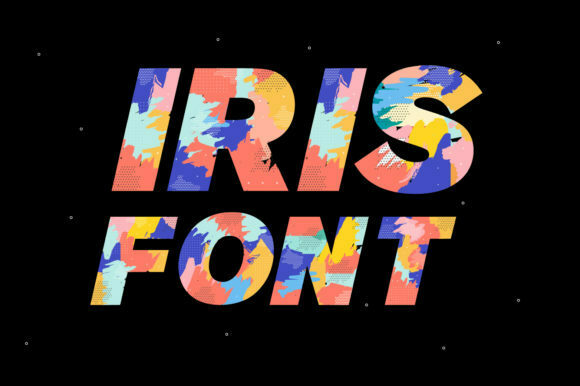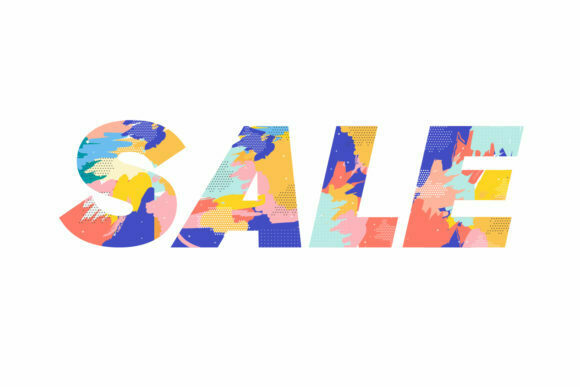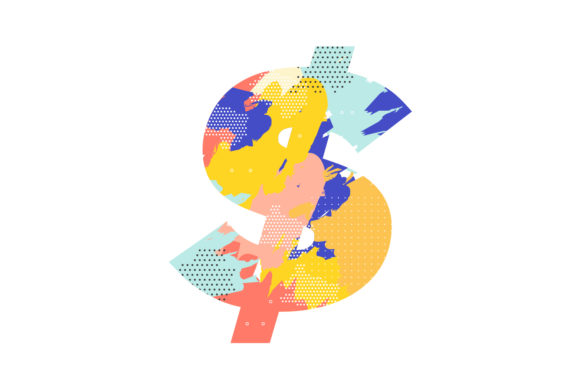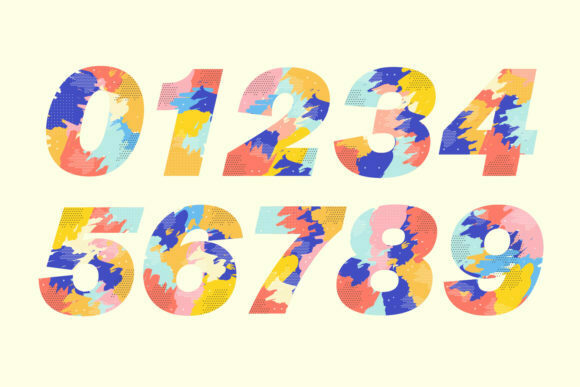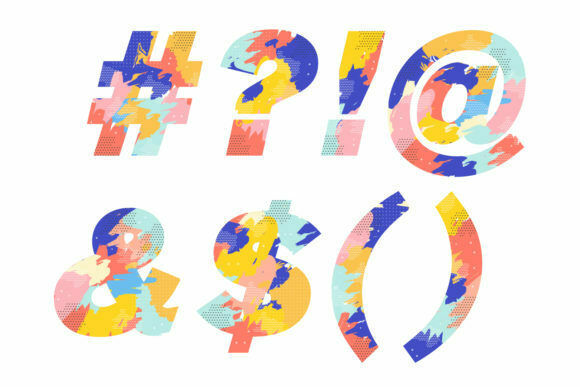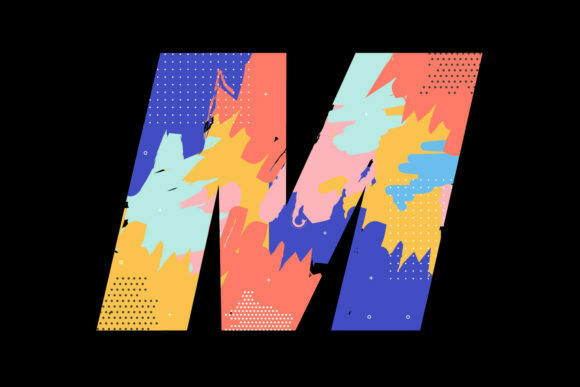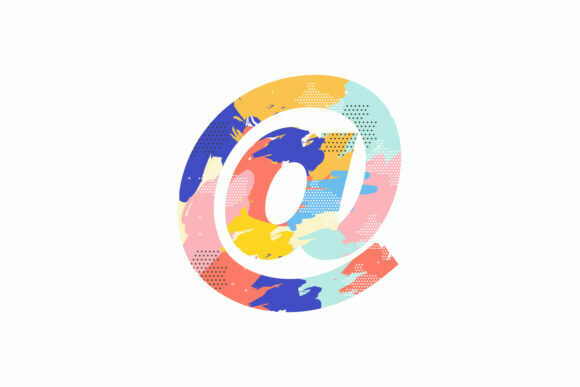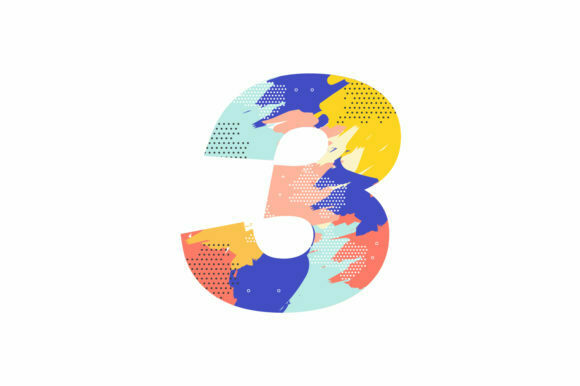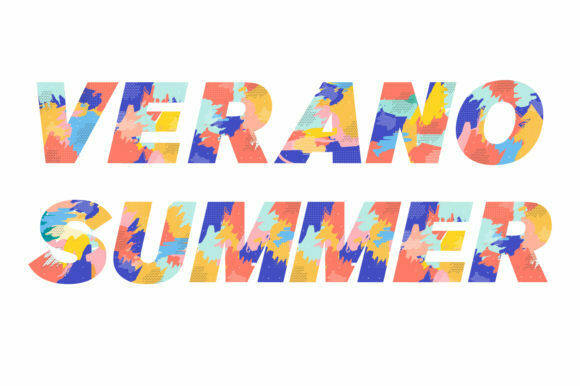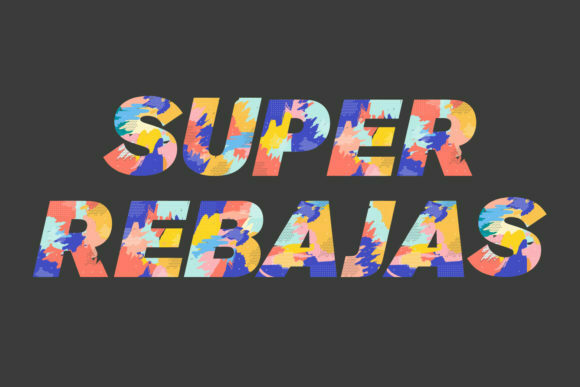
Iris Font
About Iris Font
Iris is indeed a stunning and lively color font that brings a fresh and fun touch to any design. With its vibrant and captivating colors, this font ignites creativity and infuses your typography with a playful vibe.
Whether you’re working on digital artwork, branding materials, social media graphics, or any other creative project, Iris is sure to make an impact. Its gorgeous and eye-catching colors transform each letter into a visual delight, allowing you to create captivating and memorable compositions.
The versatility of Iris opens up endless possibilities for your designs. It’s perfect for adding a fun and dynamic feel to logos, headlines, posters, and more. The vibrant charm of Iris will make your creations stand out and leave a lasting impression.
Embrace the beauty and versatility of Iris and let your creativity soar. Explore its vibrant colors, experiment with different compositions, and watch as this font breathes life into your design projects. Get ready to make a bold statement and leave a lasting impression with the lively charm of Iris.